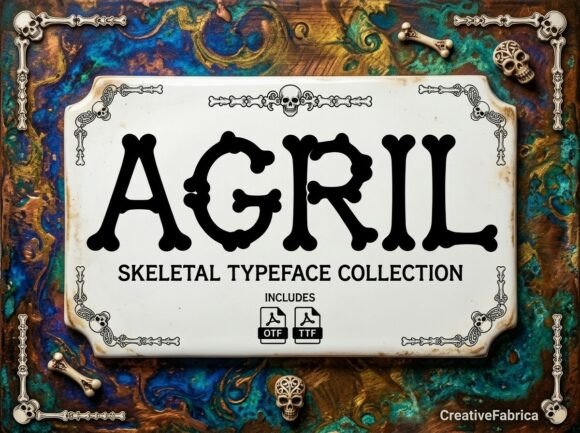
Have you ever been in the midst of a design project, pouring your heart and soul into it, only to hit a creative roadblock because of one thing: the font? I recall a particularly frustrating experience when I was working on a branding project for a luxury client. I wanted a font that exuded elegance, sophistication, and a dash of personality. That’s when I stumbled upon Agril Font, a decorative display font that instantly elevated my project to new heights.
First Impressions: A Deep Dive into Agril Font
Agril Font is not just any font; it’s a statement piece designed to be the centerpiece of any layout. With its distinct artistic elements and strong character, it’s perfect for creators looking to break away from the ordinary. Whether you’re crafting bold headlines, creative branding, or packaging, Agril Font delivers a high-end, professional aesthetic without compromising on personality.
⚠️ Technical Note: Agril Font is an All-Caps display typeface. By design, it does not contain lowercase letters, making it a powerful tool for logos, titles, and decorative initials.
Honest Review: The Good and the Quirks
- ✨ Unique artistic elements that make any project stand out.
- ✅ High-end, professional aesthetic that’s perfect for luxury brands.
- 💡 Excellent for headlines, titles, and anywhere you want to make a bold statement.
⚠️ Keep in mind that Agril Font is an all-caps font. This means you’ll need to get creative with your designs, perhaps combining it with other fonts for body text or using it in conjunction with stylish initial caps.
🤔 While it’s incredibly versatile, it’s best used sparingly due to its strong presence. Overusing it can overwhelm your design.
The Story Behind Agril Font
Agril Font was inspired by a blend of traditional typography and modern design sensibilities. Its creator aimed to craft a font that would serve as a bridge between luxury and creativity, offering designers a tool to make bold statements in their work. While the exact backstory might be shrouded in mystery, it’s clear that Agril Font is a labor of love, designed to empower creators to push the boundaries of their designs.
Q: Is Agril Font suitable for body text?
A: Due to its decorative nature and lack of lowercase letters, Agril Font is best used for titles, headings, and short bursts of text rather than body text.